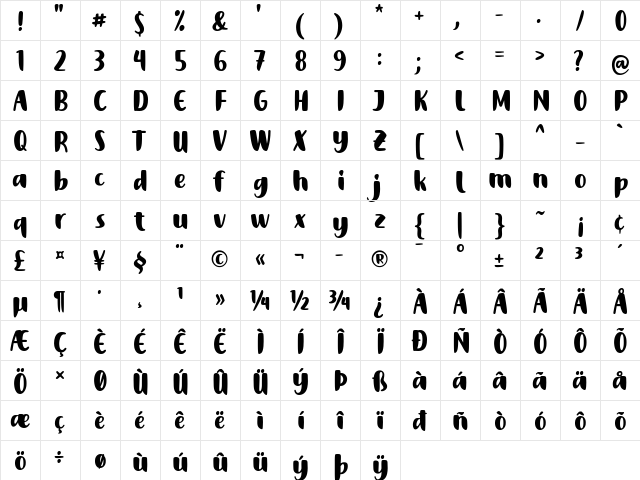
Sumber Jaya Regular
| Foundry | 7NTypes |
| Designer | Keithzo; Situjuh Nazara |
Design Context for Sumber Jaya Typeface
Sumber Jaya is a composed and adaptable typeface that performs quietly and consistently across a wide range of design contexts.